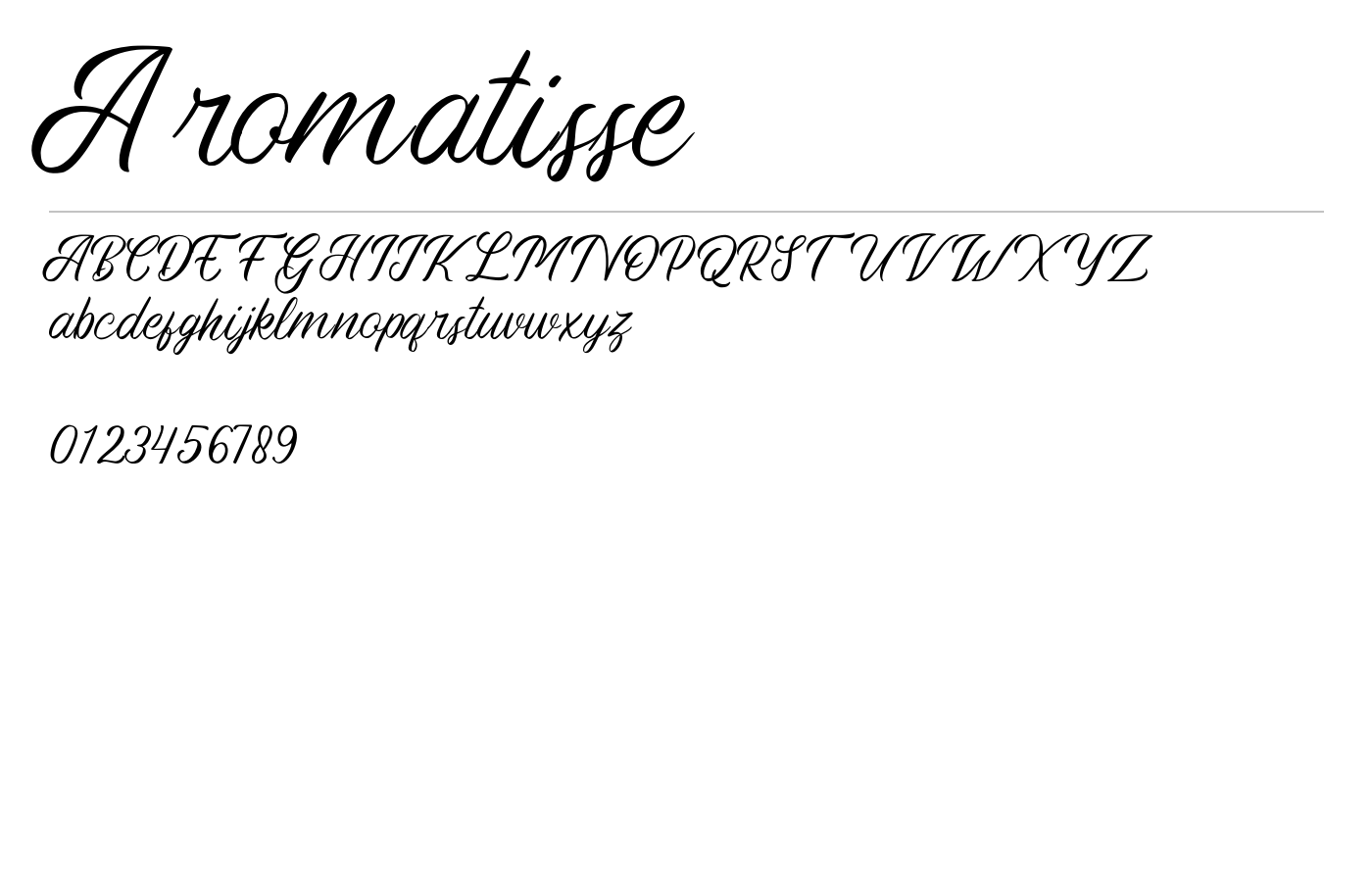
Aromatisse is an elegant script font characterized by its smooth, flowing strokes and delicate, refined curves. With a slender weight and moderate contrast, it conveys a graceful, sophisticated feel, making it perfect for invitations, branding, and any design seeking a touch of classic charm and femininity. Its stylish, cursive letterforms bring a sense of warmth and personalization, ideal for luxury and creative projects.
Aromatisse Font
About Aromatisse Font
| Designer | Tezar Tantular |